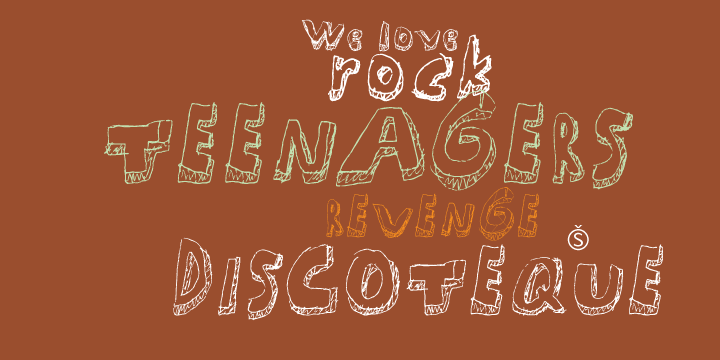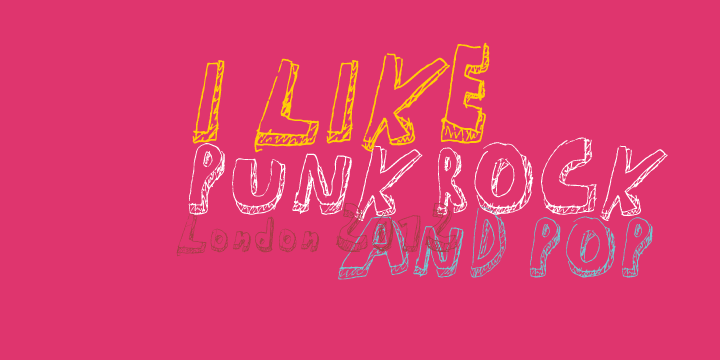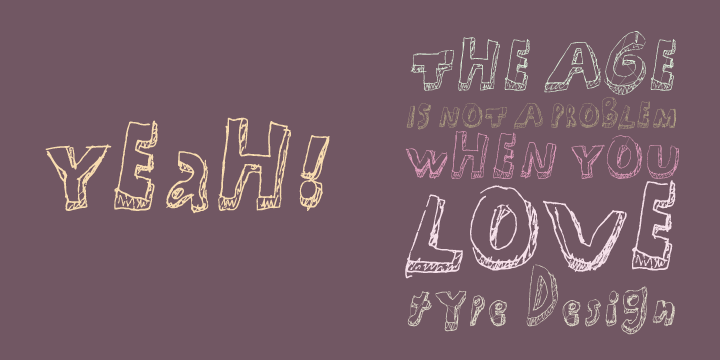
Mati
Font Family by Sudtipos
As a present one year for Father's day my son drew me a complete alphabet drawn on an A4 paper. Grungy, childish, and sweeter than a ton of honey. He'd spent days making it, three-dimensioning the letters, wiggle-shadowing them. Incredible. It was the happiest Father's Day I've ever had, and I'm prouder of my son than of everything else I've done in my life.
This is Mat's font. I hope you find it useful.